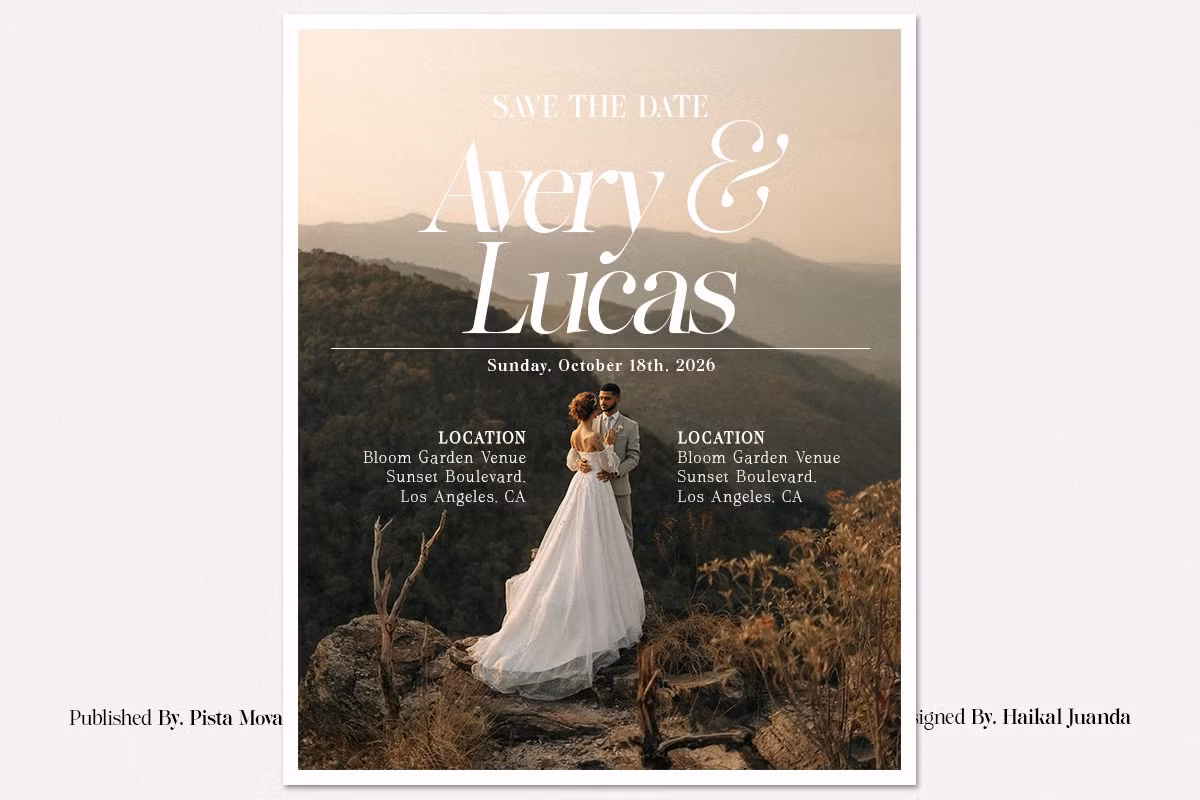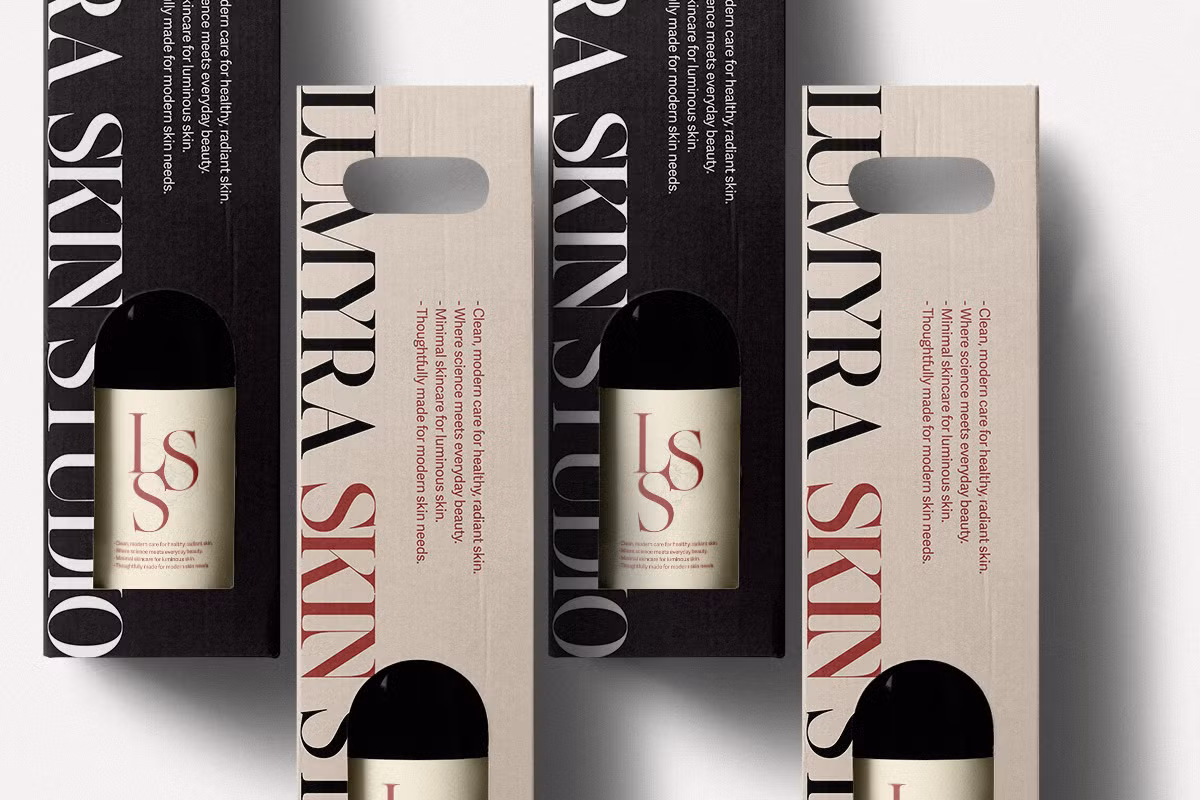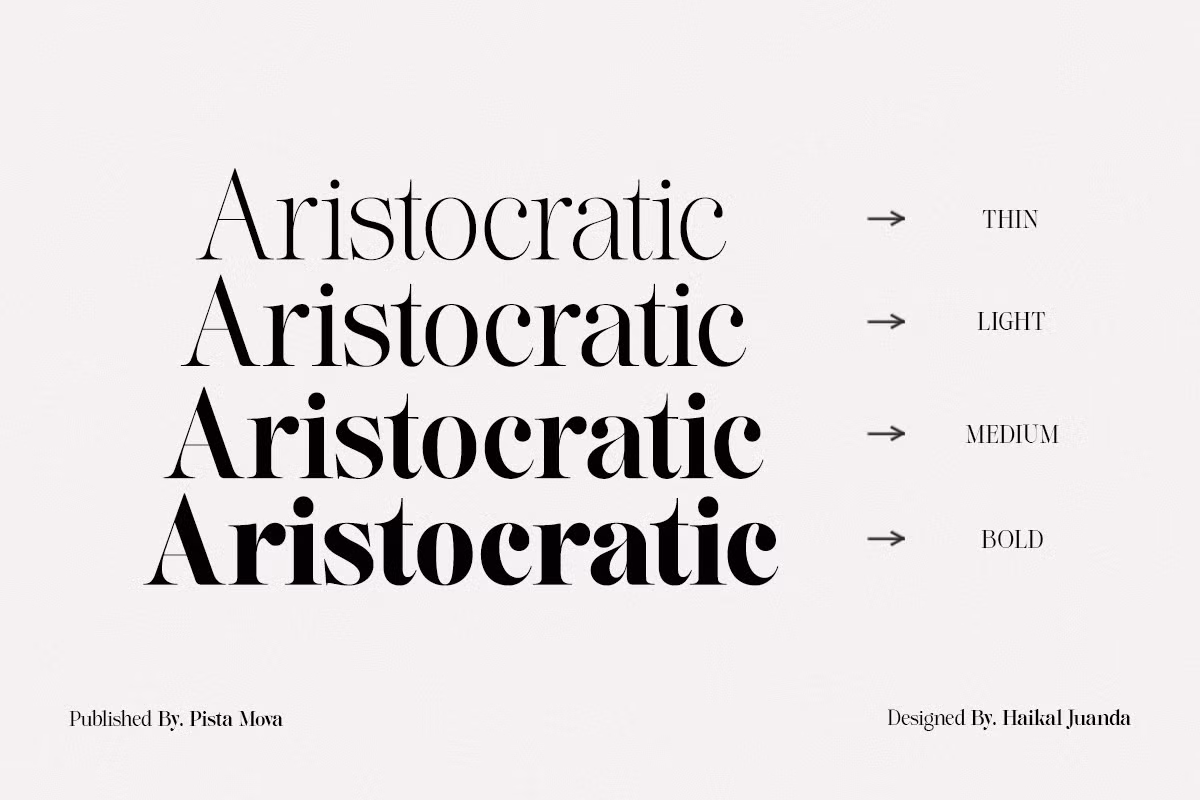
Lifestyle Icons: Timeless Serif Typeface with 8 Versatile Font Files
Introducing Lifestyle Icons: A Modern Serif Typeface
Meet Lifestyle Icons, a classic serif typeface that’s all about timeless style. It’s been carefully designed to be super versatile, so it’s perfect for creatives who want to give their work a bit of elegance. The package includes 8 font files, split into two family styles, which makes it a great all-rounder for lots of different design projects. Whether you’re working on something new or just want to refresh your existing designs, Lifestyle Icons is a great choice. With its refined look and feel, it’s sure to help you create something really special.
Plus, having two family styles to play with gives you plenty of options to experiment and find the perfect fit for your project. So, if you’re looking for a typeface that’s both stylish and practical, Lifestyle Icons is definitely worth checking out.
Design Style: A Fusion of Classic and Modern Elements
Lifestyle Icons has a special way of designing things that mixes old-school style with a modern twist. The letters have thick and thin lines that make them look fancy, and the curves are smooth and balanced, creating a nice flow. Every character is made to show both strength and subtlety, which means Lifestyle Icons can be used in many different ways.
This unique blend of classic and modern elements makes it a great choice for anyone looking for a timeless yet versatile design. Whether you’re looking to add a touch of sophistication to your project or simply want a font that’s easy to read, Lifestyle Icons is a great option. With its refined appearance and elegant curves, it’s perfect for a wide range of applications, from formal documents to creative projects.
Character Sets: Multilingual and Expressive
Lifestyle Icons has a huge range of characters that can be used in over 90 languages, so you can be sure your designs will look great all around the world. This means you can keep the same level of style and clarity in different languages, which is really useful for projects that need to reach a global audience.
Whether you’re working on a website, app, or marketing materials, Lifestyle Icons has got you covered, and you can trust that your designs will be easy to understand, no matter where they’re being used.
Use Cases: Elevate Your Design Projects
Lifestyle Icons is really versatile, which means it can be used in many different design projects. Here are some of the main ways you can use it:
- Editorial Design: Magazines, newspapers, and books benefit from the excellent readability and timeless sophistication of Lifestyle Icons.
- Branding & Logos: Create strong, memorable brand identities with Lifestyle Icons.
- Web Design: The clean and high-contrast forms of Lifestyle Icons ensure optimal legibility across all screen sizes.
- Product Packaging: Give your product packaging a touch of class with Lifestyle Icons.
- Invitations & Stationery: Leave a lasting impression through elegant typography.
Pairing Suggestions: Complementing Your Typography
When working with Lifestyle Icons, pairing it with complementary typefaces can create a harmonious design. Here are a few suggestions for effective pairings:
- Sans-Serif Pairing: Consider pairing Lifestyle Icons with a clean sans-serif typeface like Montserrat or Open Sans.
- Decorative Look: Pairing with a script font, like Great Vibes, can add a personal touch.
- Modern Serif: Pairing with another modern serif, such as Playfair Display, can create a sophisticated look.
Conclusion: Unlock Your Creative Potential with Lifestyle Icons
Lifestyle Icons is not just a font, it’s a game-changer for designers who want to create beautiful and sophisticated typography. With its amazing flexibility, stunning ligatures, and support for many languages, it’s perfect for all kinds of design projects – from magazines and newspapers to branding and advertising.